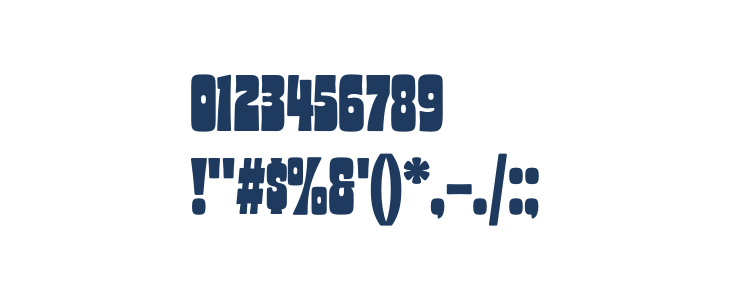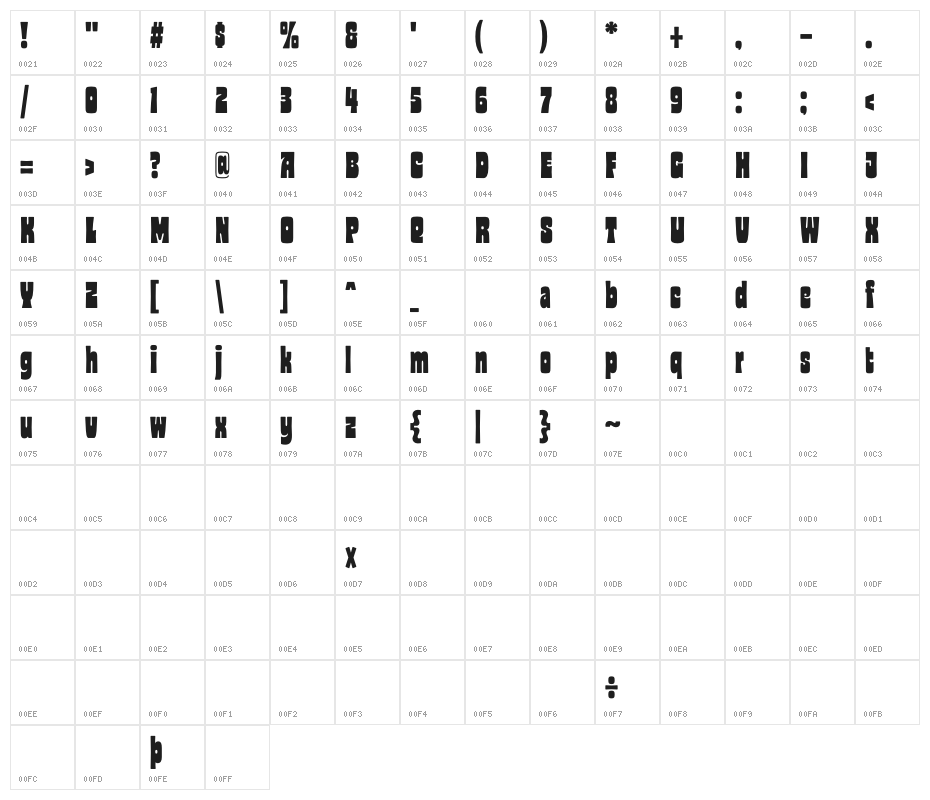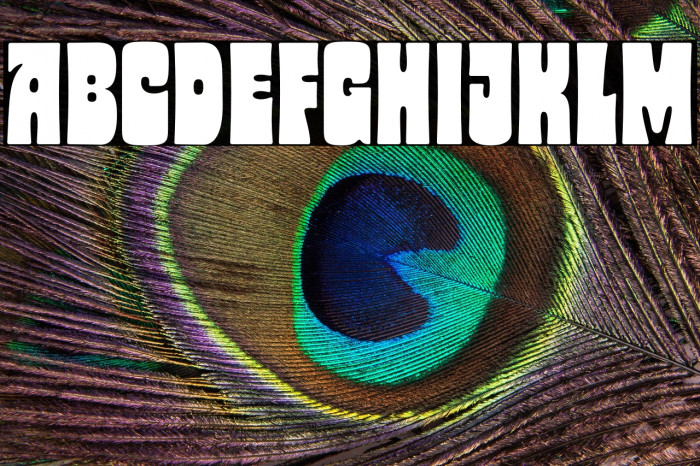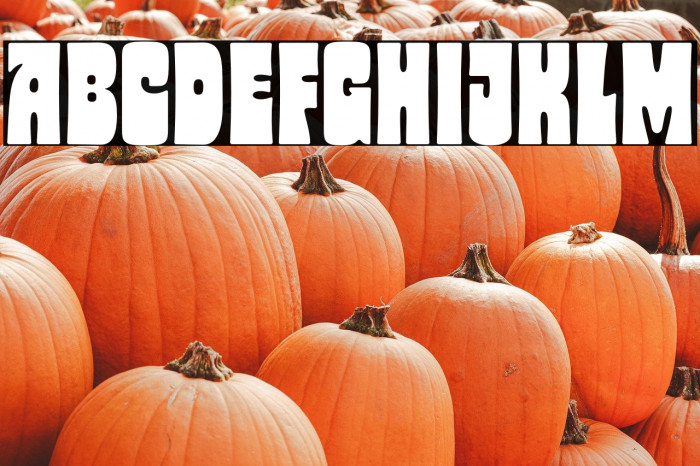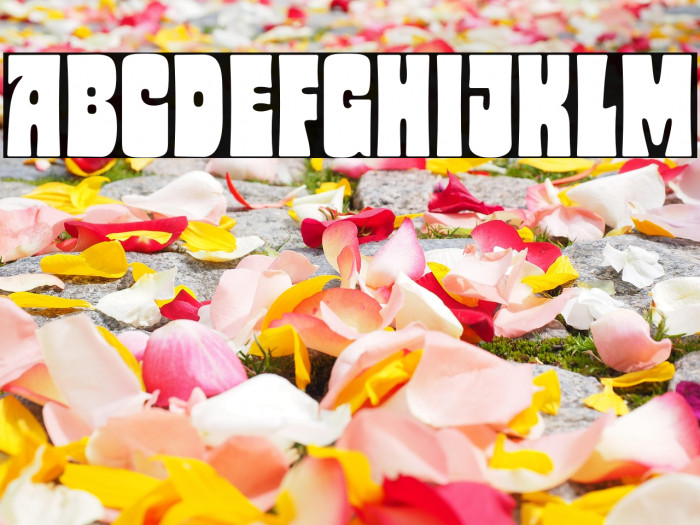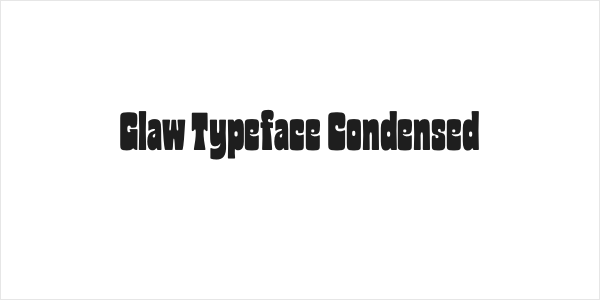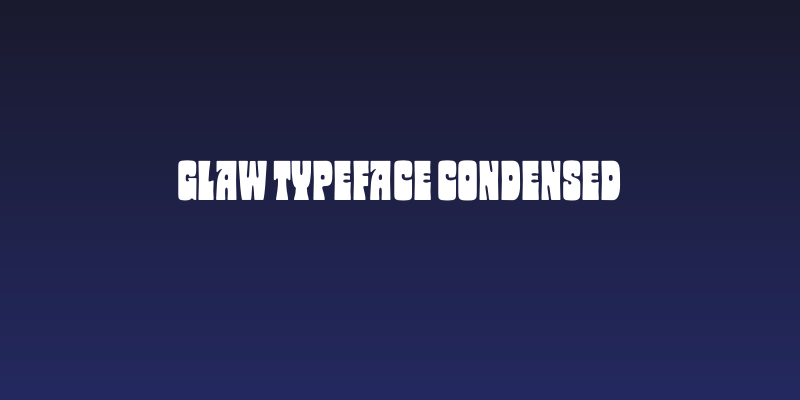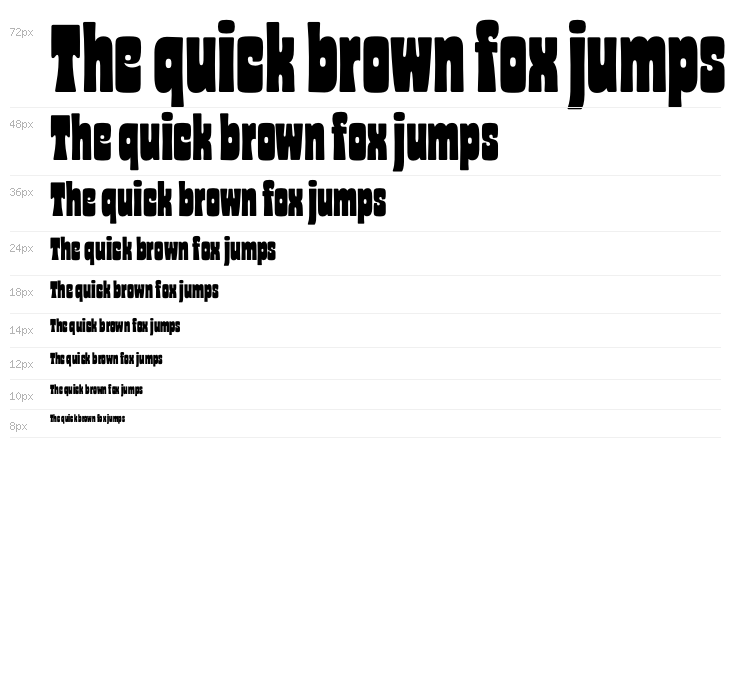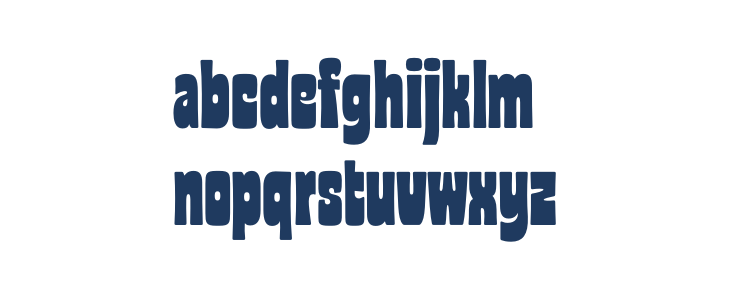
Glaw Typeface Condensed Font
Glaw Typeface Condensed Description
This typeface features a bold and condensed style with a strong visual impact. The letters are characterized by their thick, uniform strokes and minimal contrast, creating a powerful and cohesive appearance. The uppercase and lowercase letters maintain a consistent width, enhancing the condensed look. The numerals and special characters follow the same bold design, ensuring uniformity across all glyphs. This font's distinctive style makes it ideal for attention-grabbing designs.
Proposed ProjectsIdeal for posters, headlines, branding, and any design requiring a strong visual presence.